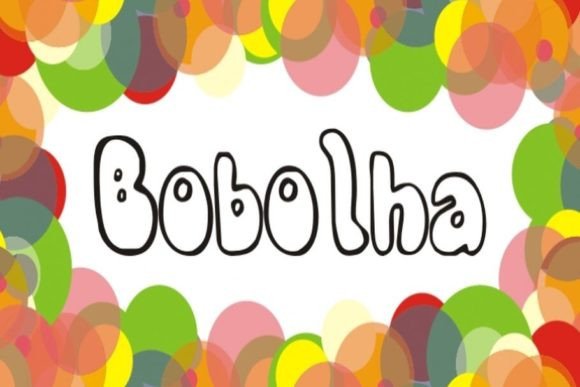
The Joy of Bobolha Font: A Designer’s New Best Friend
I’ll never forget the time I was working on a project for a children’s birthday party invitation. I had the design concept all sorted out, but I was stuck on finding the perfect font. The invitation needed to be playful, fun, and eye-catching. That’s when I stumbled upon Bobolha Font, and it completely transformed my design. In this article, I’ll share my experience with Bobolha, its features, and how you can make the most of this beautiful display font in your creative projects.
An Honest Review of Bobolha Font
What I Love About Bobolha Font
- ✨ Cute and Quirky Design: Bobolha Font adds an incredibly joyful touch to any design. Its unique and playful style makes it perfect for projects that need a bit of whimsy.
- ✅ Versatility: Despite being a display font, Bobolha can be used for a variety of creative projects, from party invitations to social media graphics.
- 💡 Easy to Read: Even with its quirky design, Bobolha remains surprisingly readable, making it suitable for headlines and short paragraphs.
While Bobolha Font is amazing, it’s not without its quirks. For instance:
- 🤔 Limited Use Cases: Due to its playful nature, Bobolha might not be the best fit for very formal or professional projects.
- ⚠️ Legibility at Small Sizes: Like many display fonts, Bobolha can become less legible at very small sizes. It’s best used for headlines or large text.
The Backstory of Bobolha Font
Bobolha was created with the intention of bringing joy and playfulness to design projects. Inspired by the quirks of hand-drawn fonts and the charm of children’s book illustrations, Bobolha aims to add a whimsical touch to any design. While the exact designer behind Bobolha might be elusive, their passion for creating delightful typography is evident in every glyph.